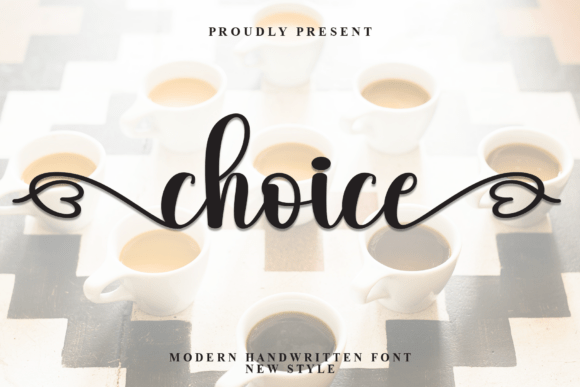
Introducing Choice Font: Elevate Your Designs with Elegance and Playfulness
In the world of typography, fonts play a crucial role in conveying the tone and personality of a design. For designers and crafters seeking a typeface that embodies both modern sophistication and a playful touch, Choice Font is an exceptional option. This stylish handwritten script font is designed to bring a personal feel to various projects, making it an ideal choice for logos, packaging, invitations, and more.
The Unique Charm of Choice Font
Choice Font stands out with its fluid strokes and charming curves, which add a warm and inviting feel to any design. The font’s modern elegance is perfectly balanced with a playful touch, making it versatile for a wide range of applications. Whether you’re creating a logo, designing packaging, or crafting invitations, Choice Font can help you achieve a unique and captivating visual identity.
Key Features of Choice Font
• Handwritten Script Style: Choice Font boasts a beautiful handwritten script style that adds a personal and human touch to your designs.
• Modern Elegance: The font’s modern elegance makes it suitable for high-end designs, such as luxury logos and premium packaging.
• Playful Touch: The playful curves and fluid strokes of Choice Font bring a sense of fun and creativity to your projects.
• Versatility: This typeface is highly versatile and can be used for various design applications, including logos, packaging, invitations, and more.
Choice Font is an excellent choice for designers and crafters looking to add a touch of elegance and playfulness to their projects. Whether you’re working on a personal project or a client’s design, this font can help you create a unique and captivating visual identity. With Choice Font, you can:
• Create stunning logos that reflect your brand’s personality
• Design eye-catching packaging that stands out on store shelves
• Craft beautiful invitations that set the tone for special events
Why Choose Choice Font?
With so many fonts available, why choose Choice Font? Here are a few compelling reasons:
• Unique Style: Choice Font offers a distinctive style that sets it apart from other fonts.
• Ease of Use: This font is easy to read and works well in various design applications.
• Customization: Choice Font can be easily customized to fit your design needs.
Tips for Using Choice Font Effectively
To get the most out of Choice Font, here are some tips for using it effectively:
• Pair with Other Fonts: Experiment with pairing Choice Font with other fonts to create a unique visual identity.
• Adjust Font Size: Adjust the font size to create visual hierarchy and emphasize important elements.
• Use in Combination with Images: Use Choice Font in combination with images to create a visually appealing design.
In conclusion, Choice Font is a stylish handwritten script font that offers a perfect blend of modern elegance and playfulness. Its fluid strokes and charming curves make it an excellent choice for designers and crafters seeking to add a personal touch to their projects. With its versatility, ease of use, and customization options, Choice Font is an ideal choice for logos, packaging, invitations, and more.